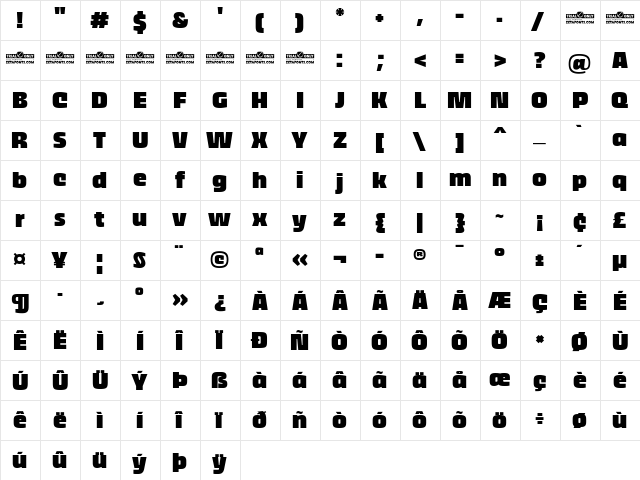
Thicker Trial Black
| Foundry | Zetafonts |
| Designer | Francesco Canovaro |
Design Context for Thicker Trial Typeface
Thicker Trial offers clean, dependable letterforms without strong stylistic allegiance, making it a practical choice for designers who need flexibility.